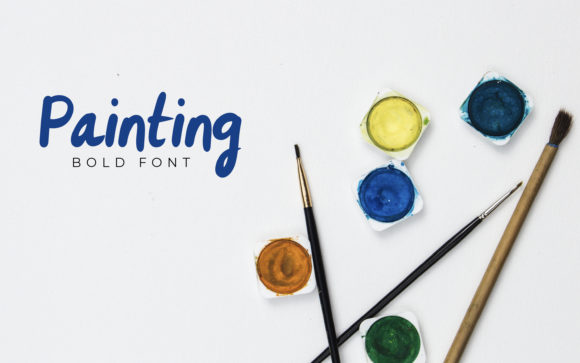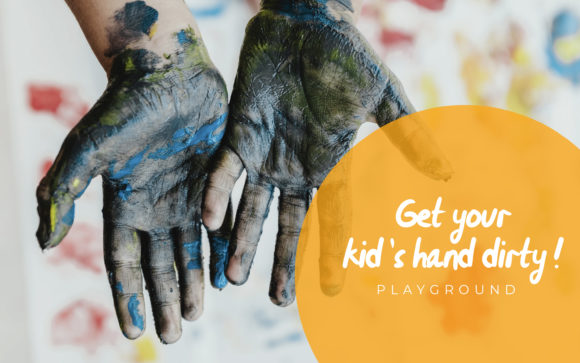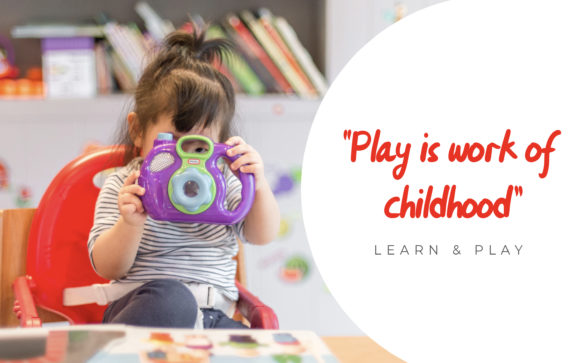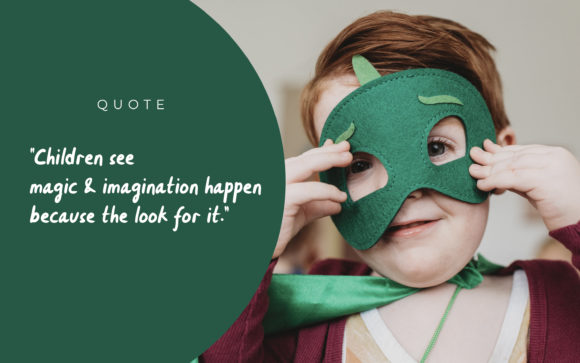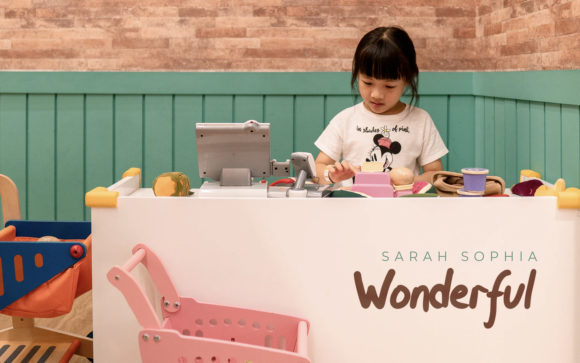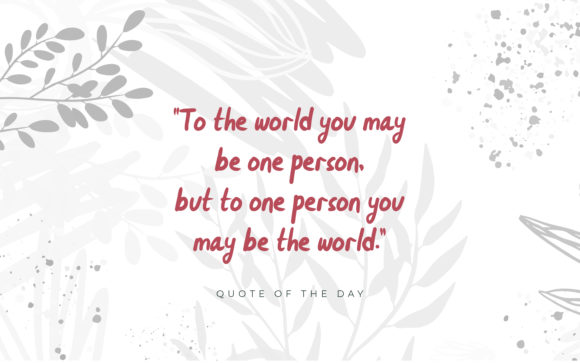
Azkara Font
About Azkara Font
Azkara is a sweet and friendly handwritten font. It embodies playfulness and authenticity and is the perfect choice for any children activity or school project.